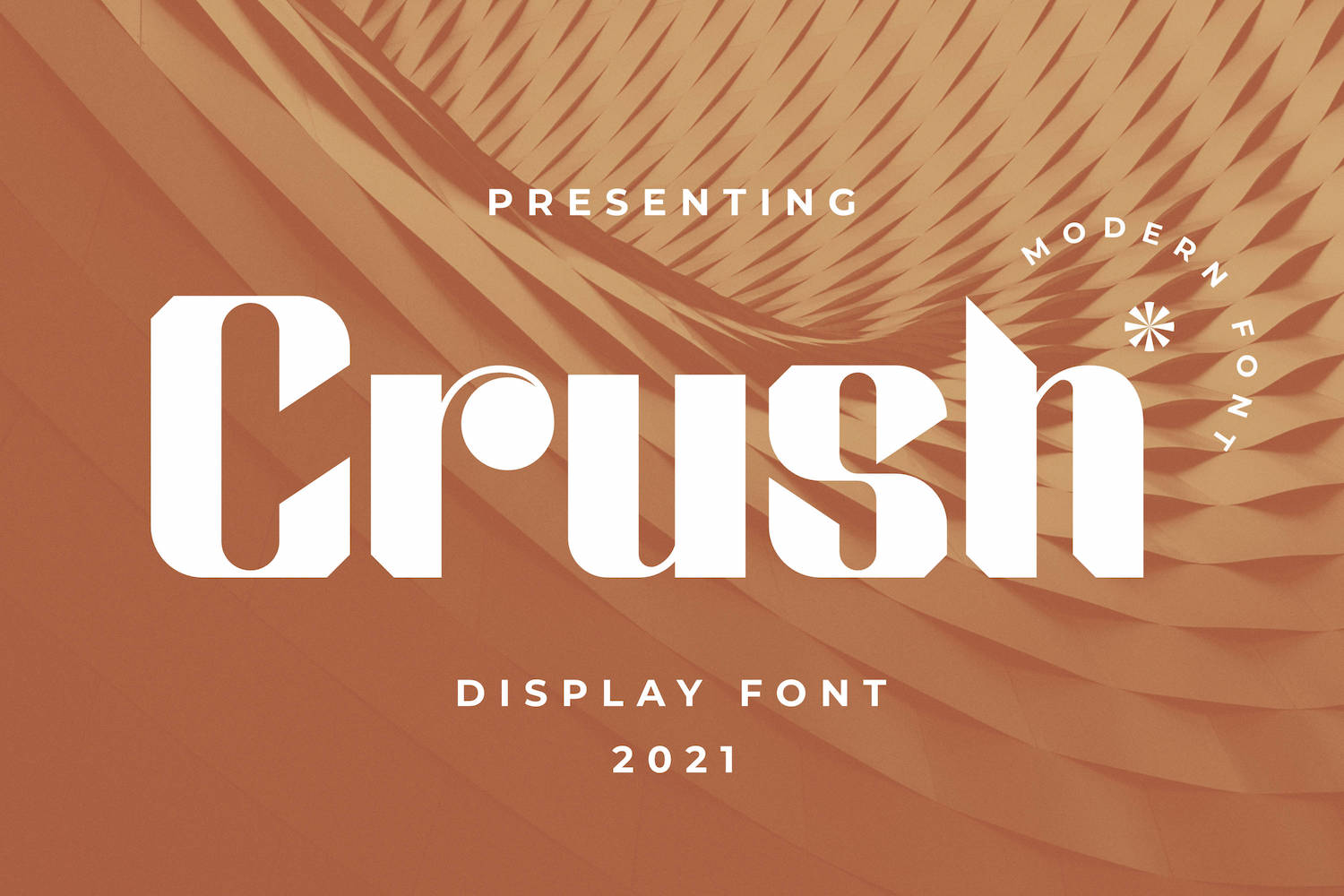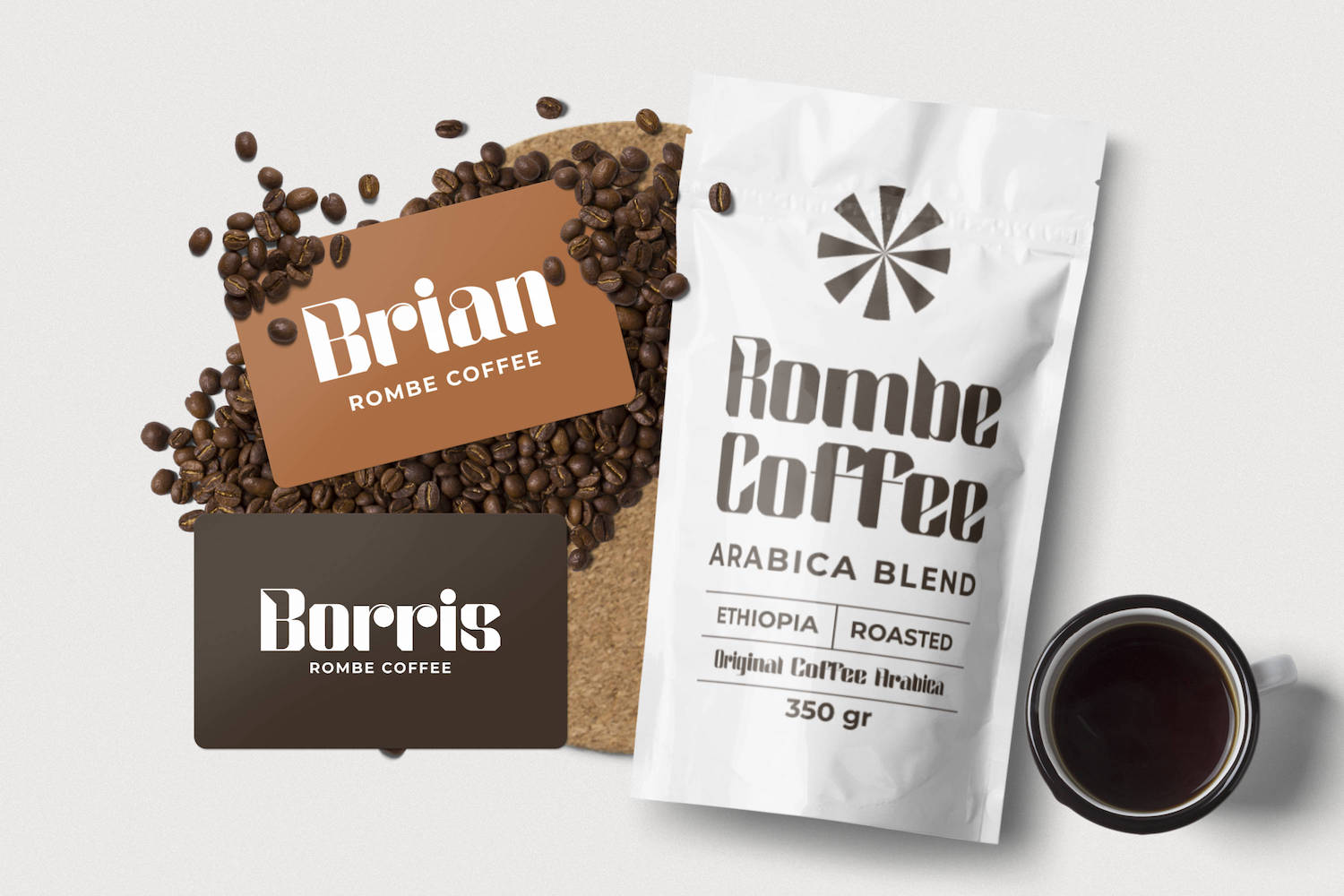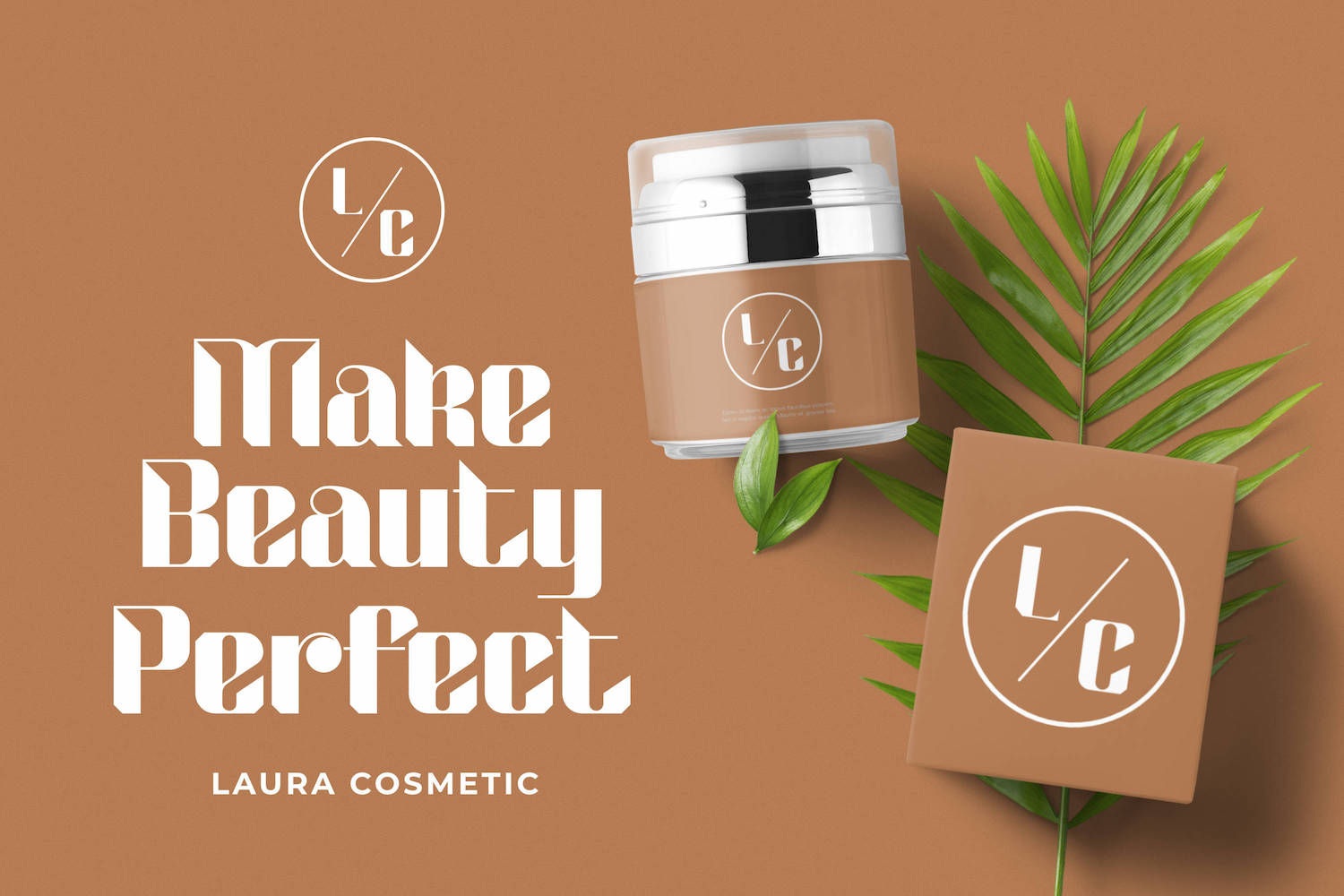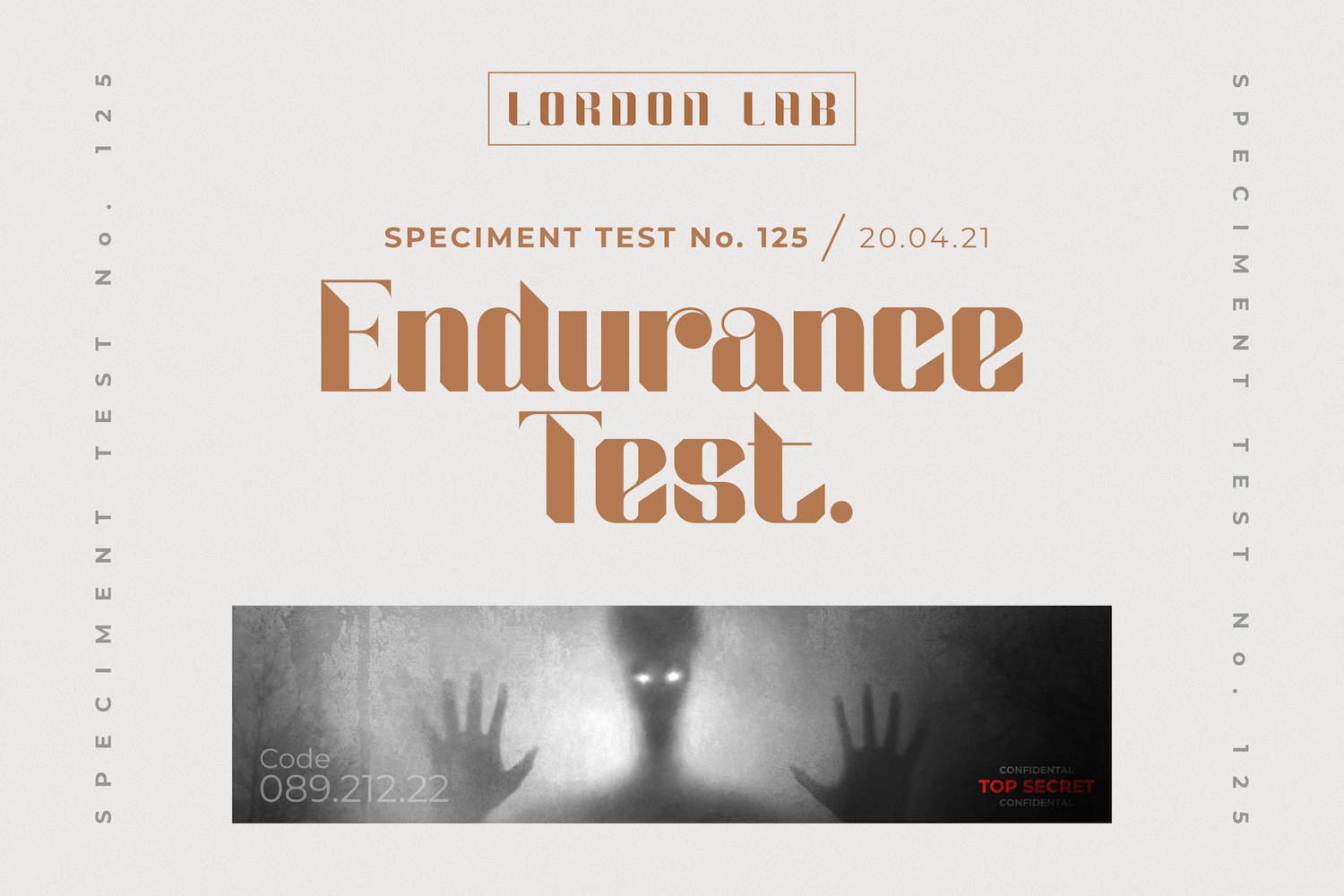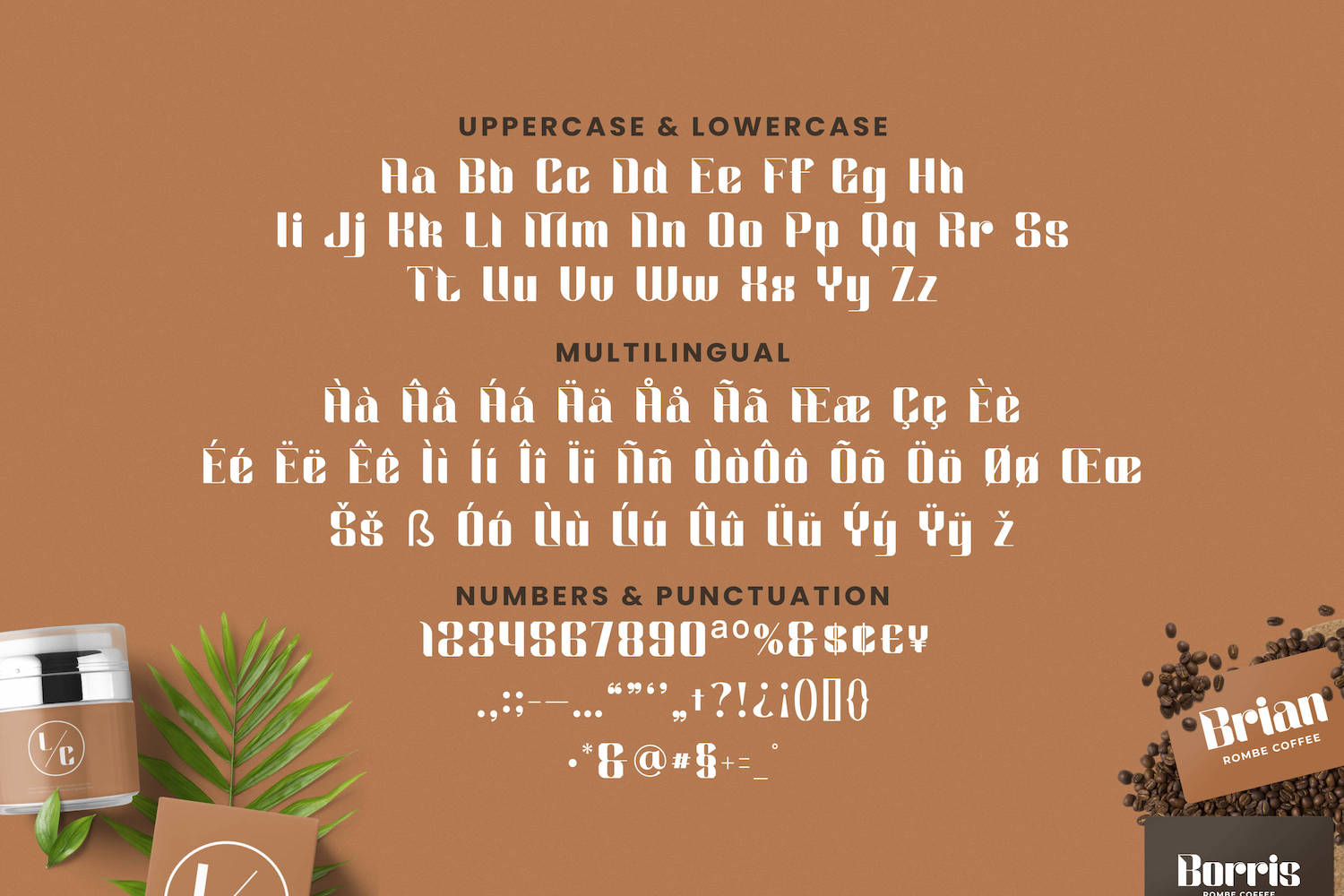
Crush
Glyphs for Crush
Crush is a bold and confident display font that blends vintage charm with modern geometric cuts. Its sharp angles, thick stems, and stylized curves create a unique personality perfect for strong branding, editorial headlines, and packaging design. With a distinctly retro-futuristic vibe, Crush stands out in both print and digital settings.
The font supports uppercase and lowercase characters, multilingual glyphs, punctuation, and numbers, making it versatile for various projects. Whether used for coffee branding, beauty packaging, or sci-fi poster designs, Crush delivers a striking typographic impact that demands attention.